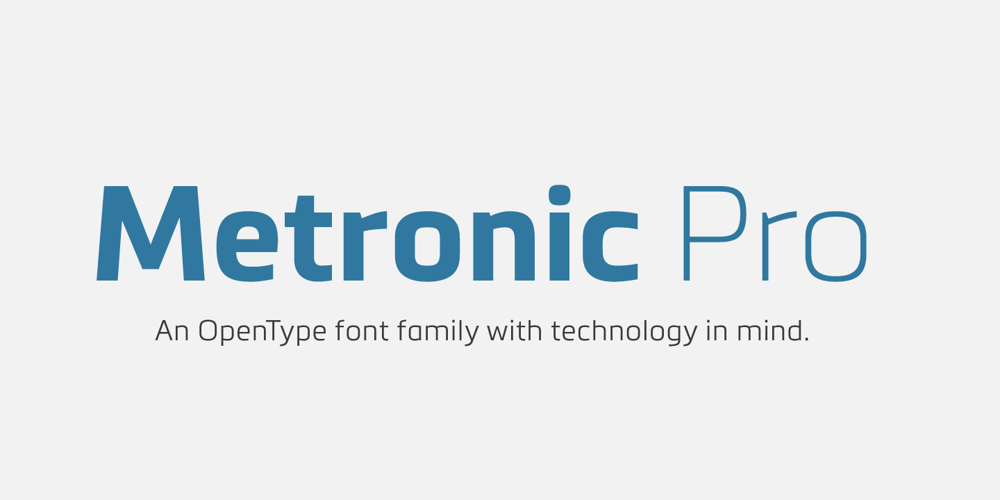
Metronic Pro Font Family was designed by Olivier Gourvat and published by Mostardesign. Metronic Pro contains 31 styles and family package options. Created by Olivier Gourvat in early 2013, Metronic Pro is a sans-serif typeface with a technological and minimalist look for text and headlines. It has six versatile weights from Air to Black with an alternative glyph set to improve its use in different graphic contexts. Metronic Pro has a wide range of OpenType features such as: old style and proportional figures, ligatures, case sensitive forms, fractions, stylistic alternates, arrows and an icons/ornaments set. This set of 60 icons, directly inspired from the typeface improves the OpenType features and can be quickly and easily use in your web design, GUI design, graphic design or any other graphic work.